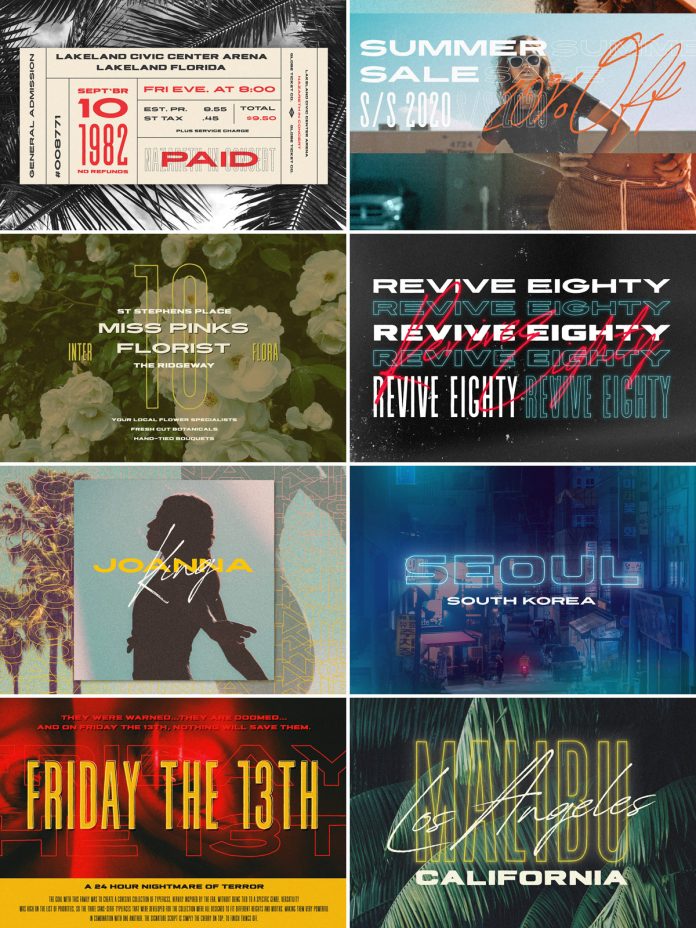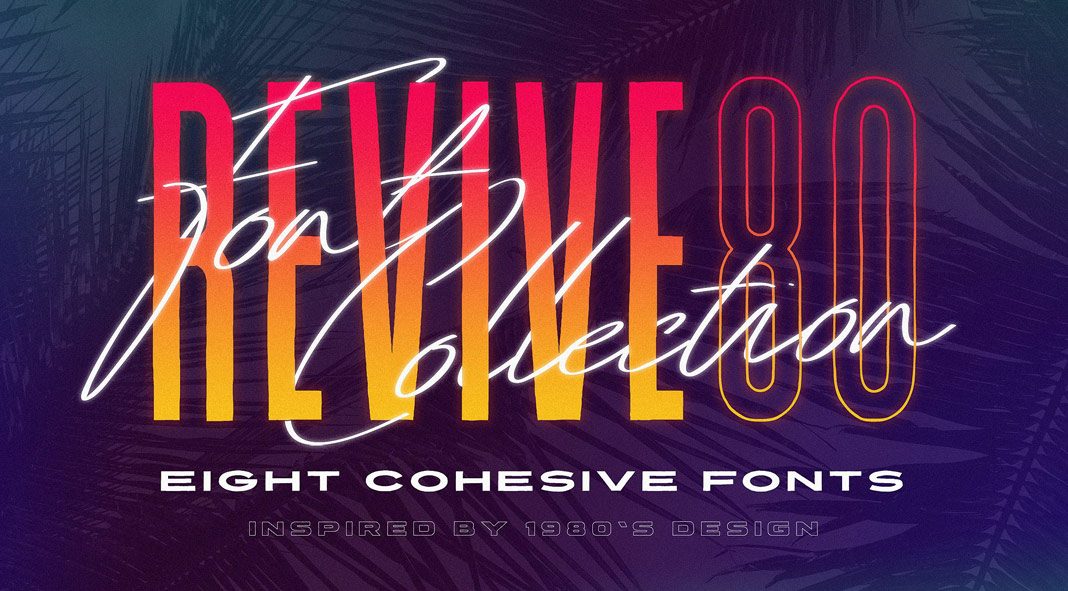
Revive, an awesome pack of 1980s inspired retro fonts created by graphic and type designer Tom Chalky.
The 80s are back—at least it seems like that when checking out these well-designed retro fonts by Tom Chalky. Revive is a font collection consisting of 8 versatile typefaces. With this collection, Tom Chalky wanted to develop a cohesive series of typefaces that are heavily inspired by this vibrant era without being tied to a specific style. Whether used separately or in combination, these typefaces are a great choice for t-shirt designs, retro posters, signage, websites, etc. Thanks to the extended Latin-based character set, all of the fonts support multiple languages. The download pack includes both OTF and TTF files. To learn more, just click on one of the following links or have a look at the images below.